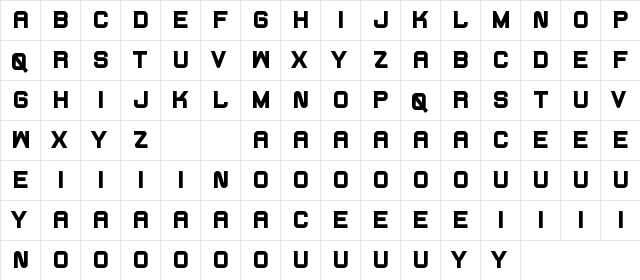
Fearcheer Demo Bold
Design Context for Fearcheer Demo Typeface
Fearcheer Demo takes a measured approach to typography — its balanced proportions and neutral character make it a reliable workhorse for both digital and print work. Its bold stroke weight gives it real presence on the page.